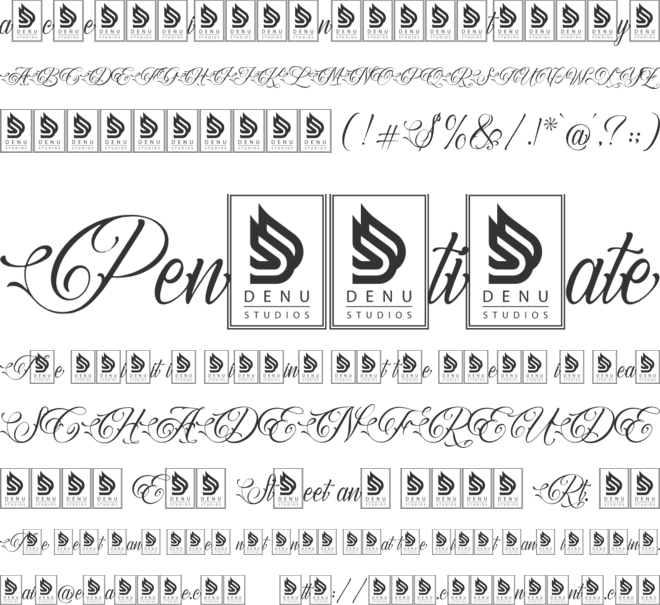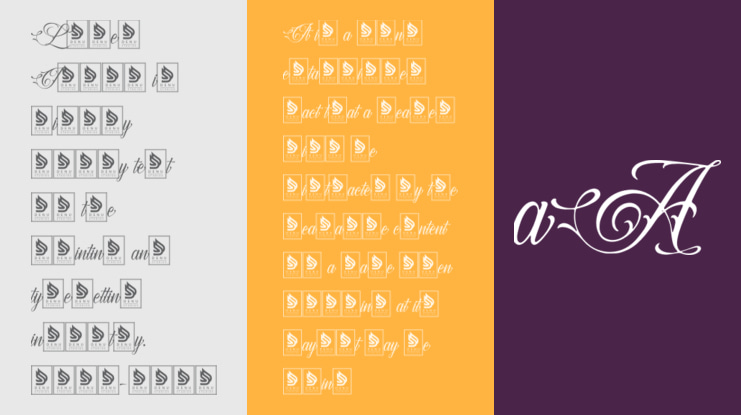
Dede Nugraha
Manciety | Tattoo Script Font product packaging, mugs, quotes, posters, shopping bags, t-shirts, book covers, name card, invitation cards, greeting cards, label, photography, watermark, special events, and all your other lovely projects that need a Tattoo taste.